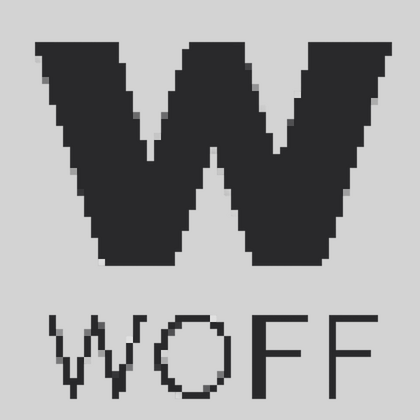
WOFF fonts
TypeType’s WOFF fonts are developed to accelerate web page loading, combining compact file sizes with professional typography quality. Our catalog includes font families with manual hinting (precise pixel display adjustment), comprehensive Cyrillic support, and flawless kerning pairs—providing ready-to-use solutions for landing pages, blogs, and e-commerce sites.